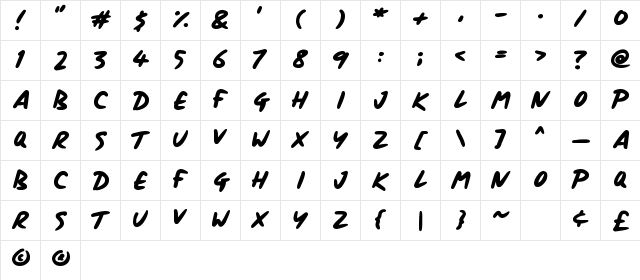
Signboard Regular
Design Context for Signboard
Signboard is a composed and adaptable typeface that performs quietly and consistently across a wide range of design contexts.
Pro Tip: Use Signboard in both headline and body roles to test its range before committing to a single application.